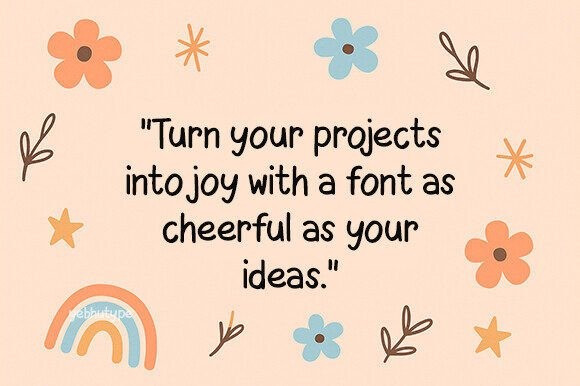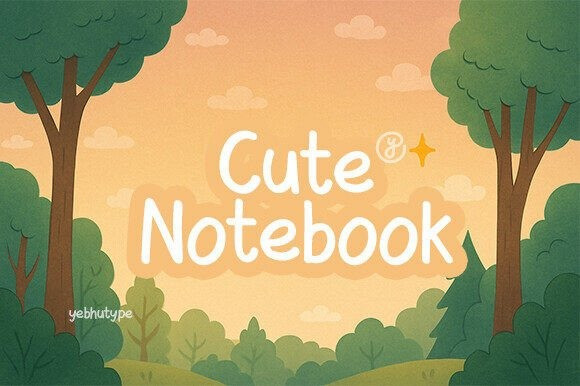
Cute Notebook Font
Cute Notebook font—an embodiment of spontaneous creativity that extends a warm, handwritten hug across every creative endeavor. This delightful typeface, inspired by the whimsy of daydreams, doodles and boundless imagination, mirrors the joy and charm of a well-worn notebook page.
Cute Notebook isn’t just any font—it’s an authentic expression of creativity, radiating warmth and familiarity. This hand-rendered typeface, inspired by the impromptu sketches and innocent scribbles found in the gaps of a notebook page, delights in its blend of playful sincerity and candid authenticity. This font encapsulates nostalgia, acting as a charming conduit between childhood memories and the present moment. Whether it’s a project for children or tapping into your inner child, Cute Nottebook presents a cherished, reminiscent touch that feels both reassuring and ever so imaginative.